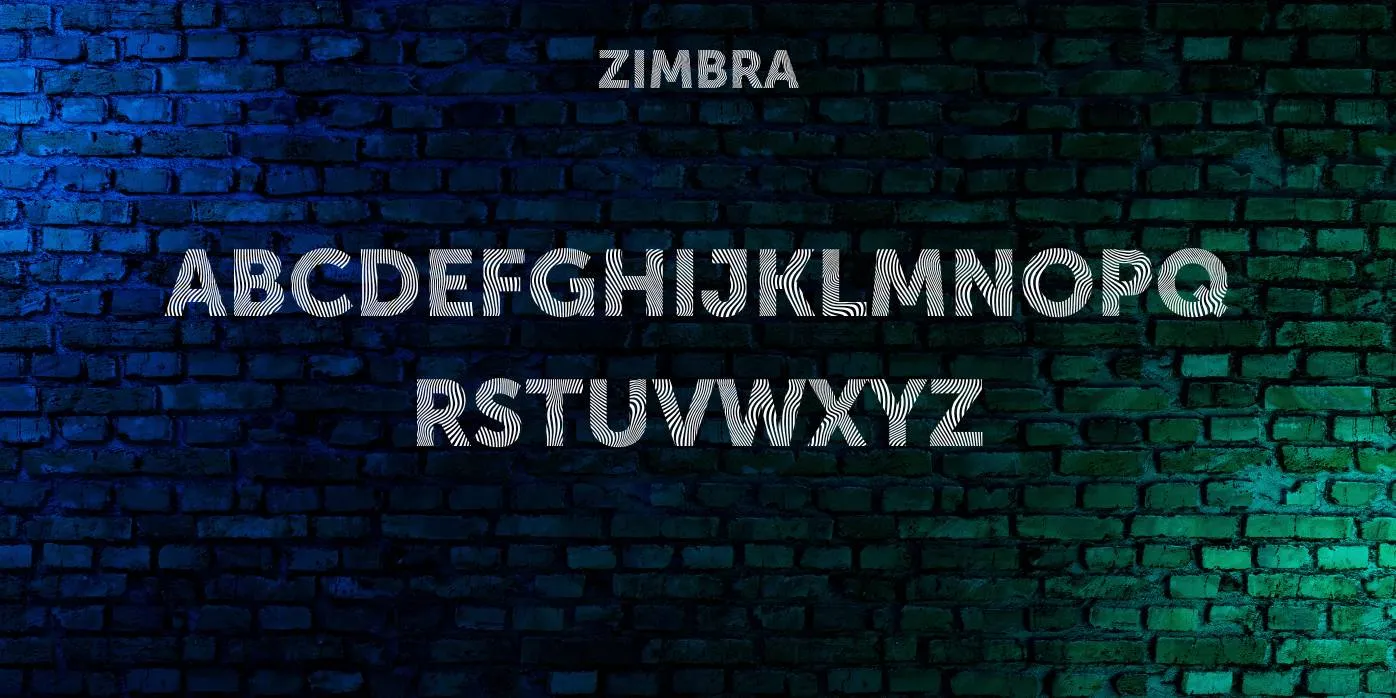
Zimbra Font
Let’s talk about a very interesting and decorative typeface Zimbra font. This decorative font was designed by Alex Etewut and manufactured by Bundles Fonts. It has many different features which make it look nice and attractive. The alphabet of this font has marker lines in it which gives a unique and different look.
It has characters, capital letters, punctuation, symbols, and special characters. To make very powerful logos and title designs you can use this font. You can use this font for branding and product packing. It is a suitable choice for both print and digital media.
You can print this font on T-shirts and mugs also. To make attractive and decorative designs on Book Covers, magazine covers and to print diaries of different brands you can use this font. To make eye-catching banners, posters, flyers, and brochures it is a very nice font for use. You can make or edit your designs in Adobe Photoshop, CSS, and Canva.
Who is the owner of Zimbra Font? This stunning font is designed by Alex Etewut and manufactured by Bundles Fonts. It is a very unique and decorative font that can be used to design so many different projects. Can I use Zimbra Font for my logos?